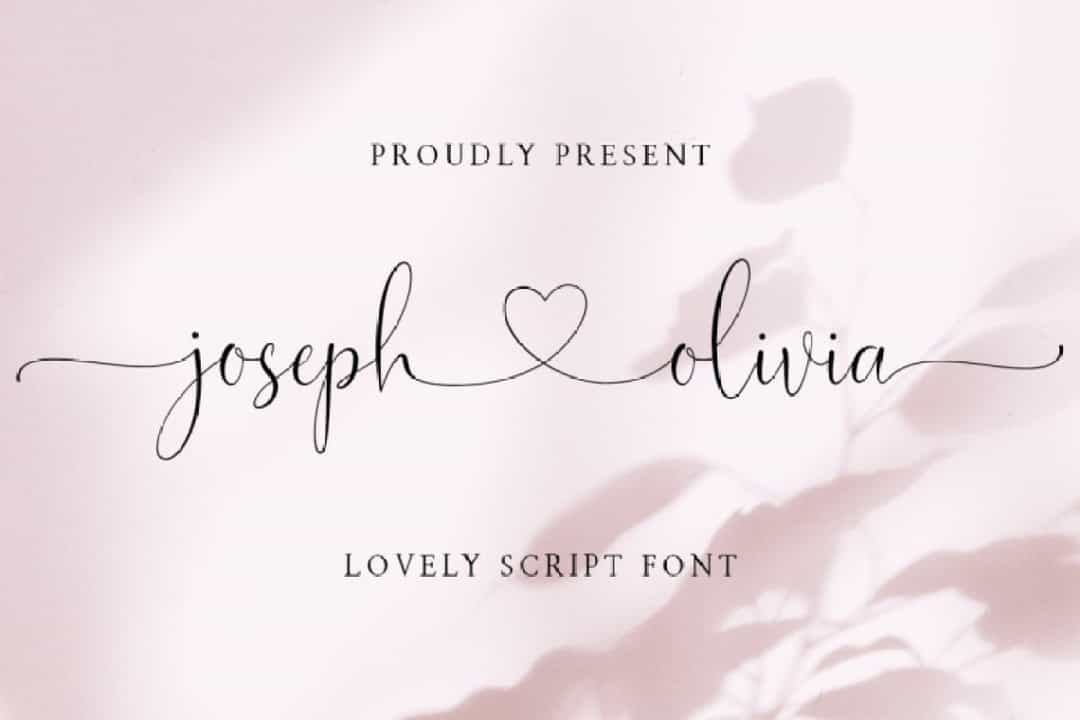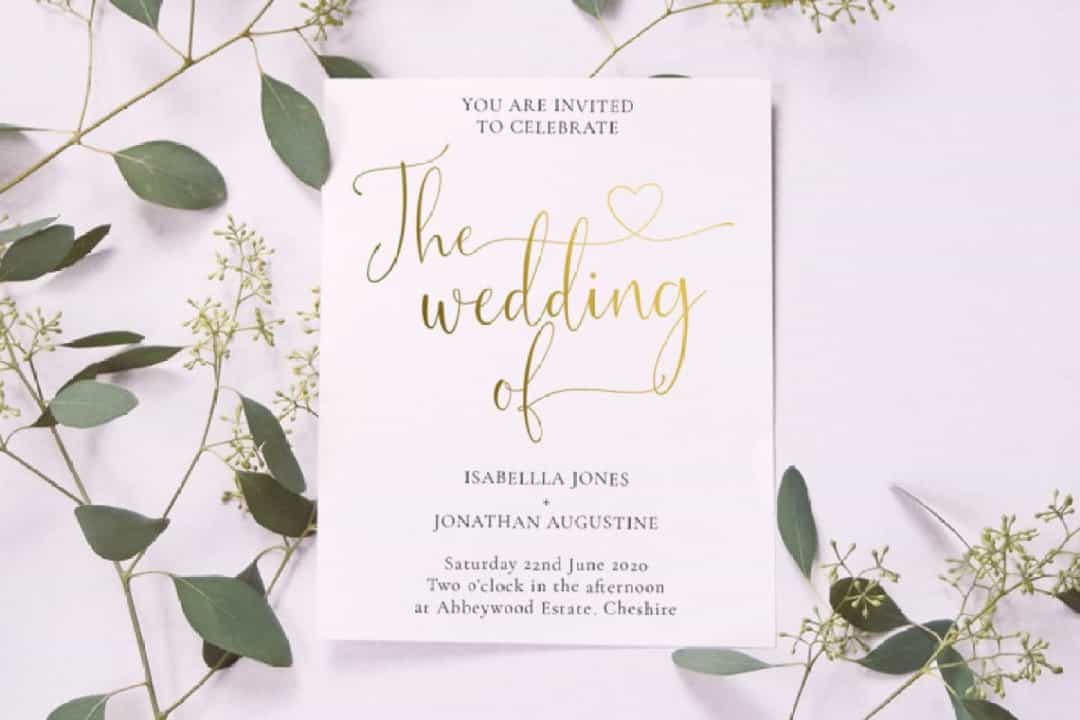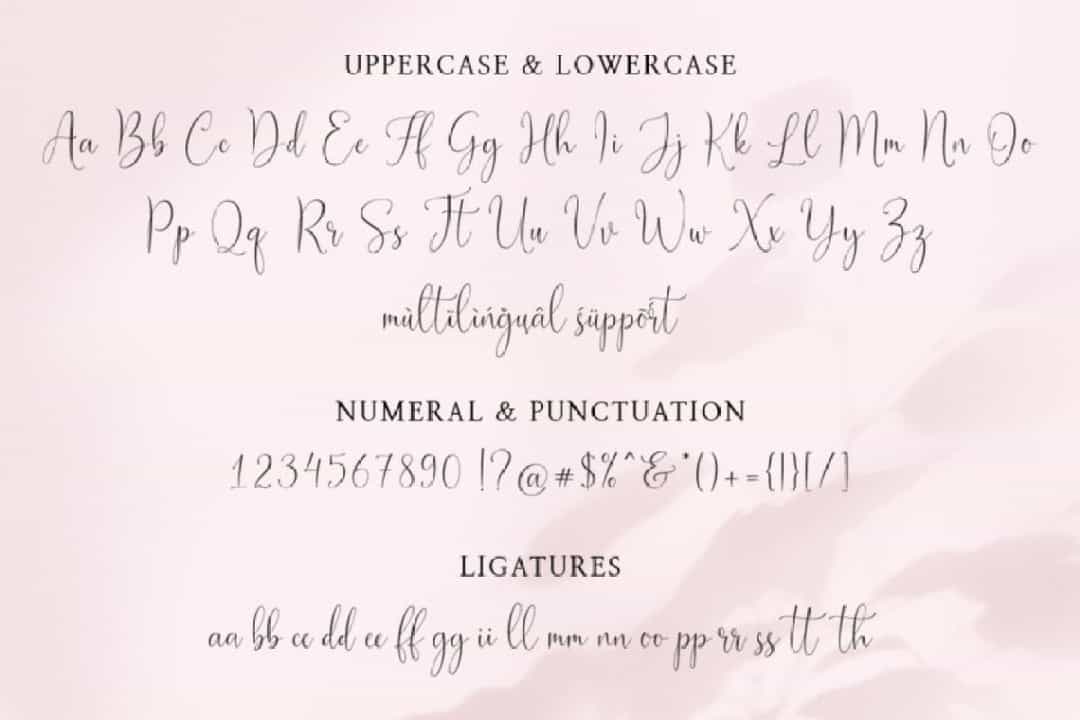
This font called Joseph Olivia is a modern calligraphy font with handwritten strokes and with hearts and glyphs that can be used for a wedding invitation, logos, gift cards, photography logo, watermark, packaging, products, handwritten quotes and sayings, etc. This font is available with its own set of lower case and upper case symbols in different languages, numbers, and special characters including ligature.